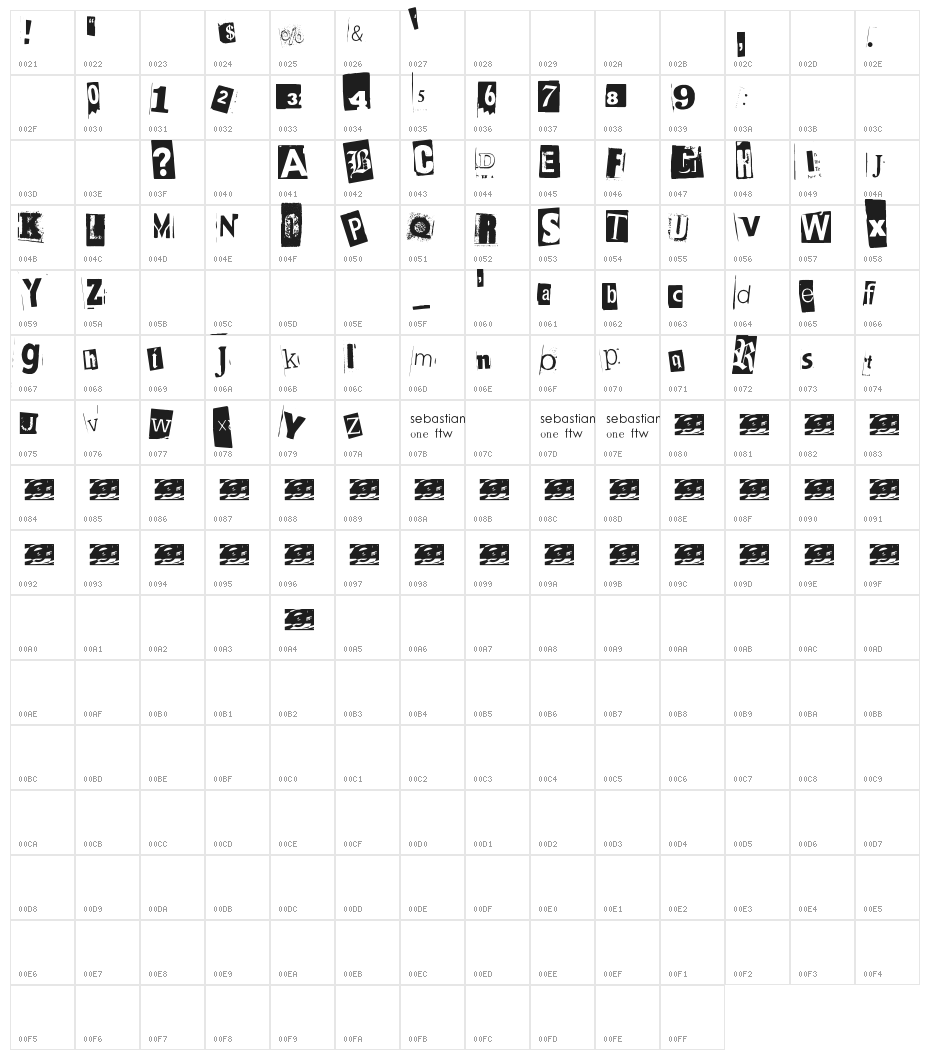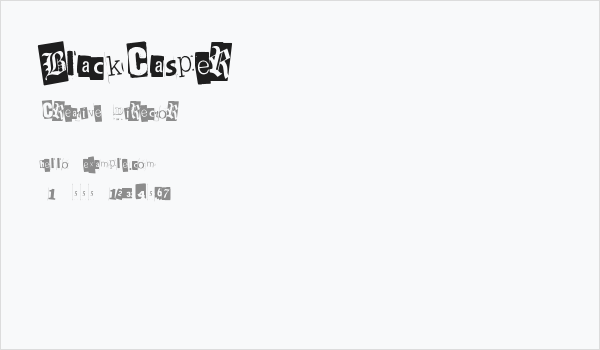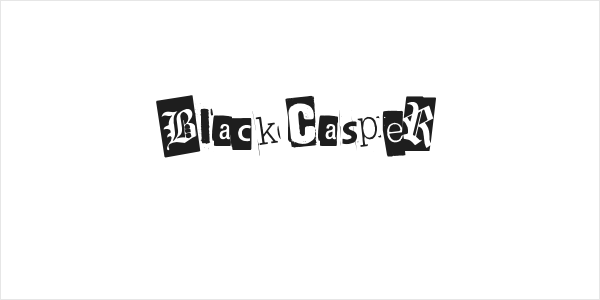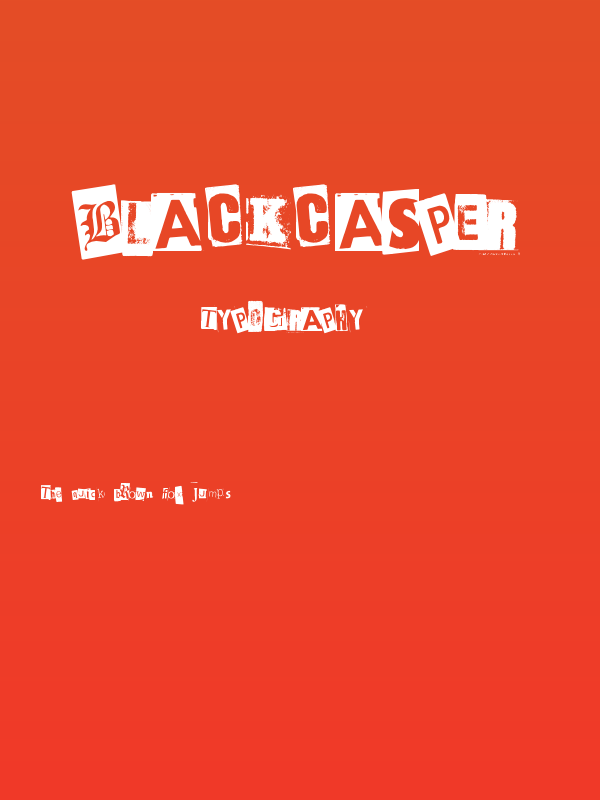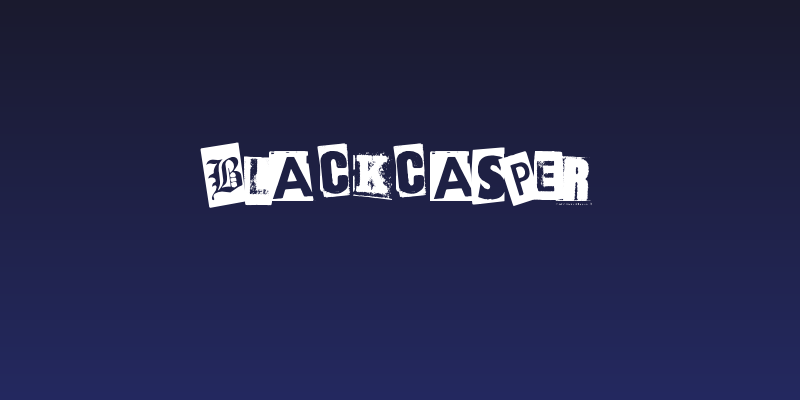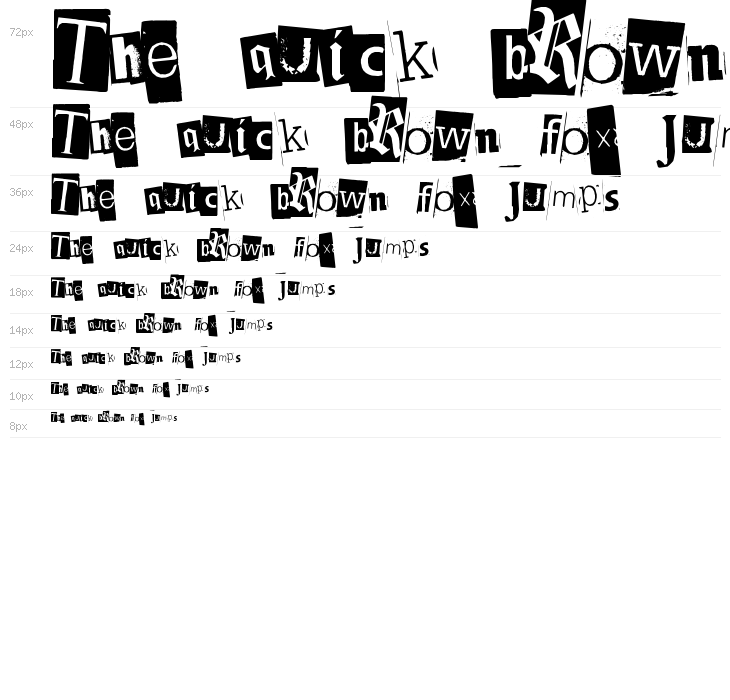
BlackCasper Font
BlackCasper Description
This font features a highly eclectic and distressed style, reminiscent of cut-out letters from magazines or newspapers. Each character appears to be individually crafted with varying levels of texture and wear, giving it a grungy and rebellious aesthetic. The uppercase and lowercase letters are mismatched in style and size, adding to the chaotic and unpredictable nature of the font. The numbers and special characters follow the same theme, with each symbol appearing as if it has been torn from a different source. This font is ideal for projects that require a raw, edgy, and unconventional look.
| Overall Style | Grunge, Eclectic |
| Use Case | Headlines, Artistic projects, Branding |
| Proposed Projects | Ideal for album covers, punk-themed posters, zines, and rebellious branding. |